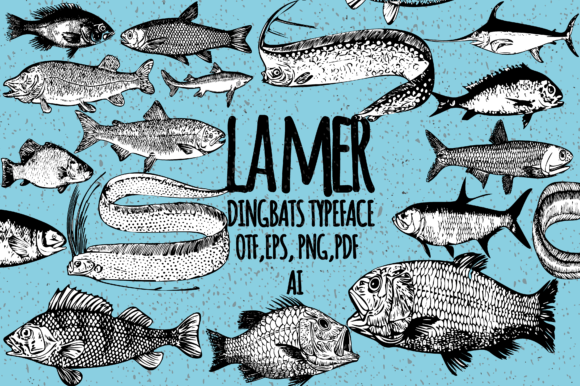
Introducing La Mer Font: The Ultimate Dingbats Font for Your Creative Endeavors
Embark on a voyage of creativity with La Mer Font, a captivating dingbats font that will infuse your designs with a touch of elegance and whimsy. Immerse yourself in the limitless possibilities that await, as La Mer's versatile characters seamlessly adapt to a vast array of projects.
Step into a world where imagination knows no bounds. Whether you're a seasoned graphic designer seeking to elevate your work or a passionate crafter yearning for unique expressions, La Mer Font will be your steadfast companion. Let your creative spirit soar as you explore the endless opportunities that await.
With La Mer Font, the ordinary becomes extraordinary. Craft eye-catching logos that command attention, design business cards that leave a lasting impression, or create social media graphics that captivate your audience. The possibilities are as boundless as your imagination.
La Mer Font is not merely a collection of symbols; it's a gateway to a world of visual storytelling. Its carefully crafted characters possess a charm that breathes life into your designs. From delicate swirls to playful motifs, each element is meticulously designed to evoke emotions and convey messages.
Unleash the power of La Mer Font and watch your creative visions come to life. Transform ordinary projects into captivating masterpieces, leaving a trail of awe and admiration wherever they go. Embrace the limitless potential that awaits and embark on a creative journey unlike any other.
La Mer Font: Where Creativity Meets Elegance